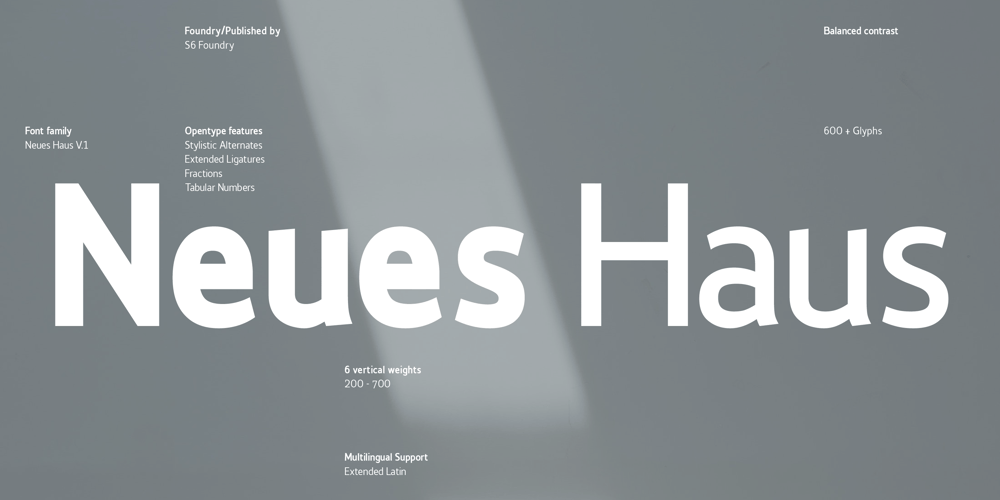
Neues Haus Font Family was designed by Paul Henry Robb and published by S6 Foundry. Neues Haus contains 1 styles and family package options. Neues Haus is a typeface with legible characters for maximum readability and legibility — perfect for a modern and stylish contemporary design, characterized by more generous oval proportions and slightly more open terminals. This font family can be used as a headline or as a body copy typeface,and also includes a useful icon set.